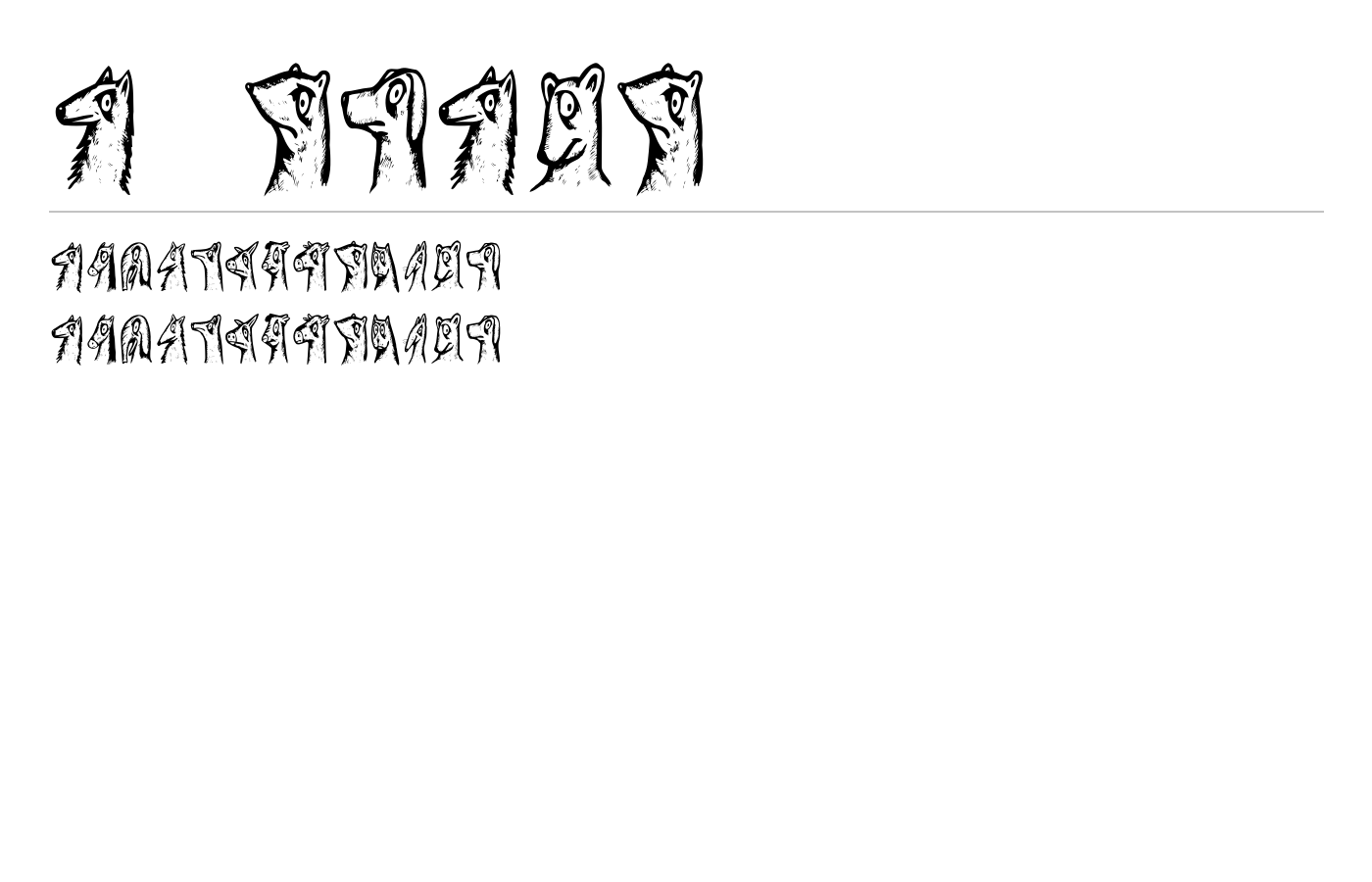
Animality Font is a playful and quirky display typeface featuring hand-drawn animal head illustrations as glyphs. With its irregular, detailed strokes and whimsical character, the font brings a lively and artistic feel perfect for creative projects, children’s designs, or unique branding. It works best in logos, posters, or packaging where a fun, organic, and expressive touch is desired to capture attention and convey personality.
Animality Font
About Animality Font